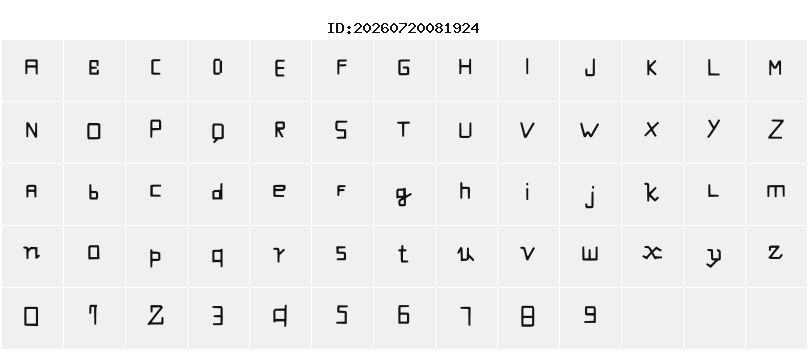
• Font Name: FuturisticEvolution
• Full Font Name: FuturisticEvolution
About FuturisticEvolution.ttf
FuturisticEvolution.ttf is a modern, elegant sans-serif font designed for ultimate readability and visual harmony. Perfect for branding, headlines, web design, and print materials.